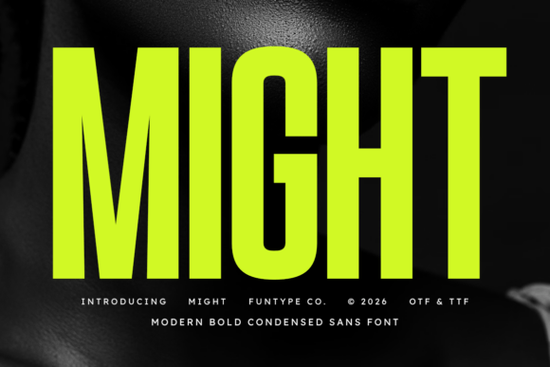
If you're looking for a font that can add a bold and powerful touch to your designs, the Might Font is an excellent choice. This modern bold condensed sans serif font is designed to make a strong impact, making it ideal for headlines, logos, and branding projects.
What Makes Might Font Stand Out?
The Might Font stands out with its refined heavy structure, tall height, and clean, solid lines. The unique sharp interior angles give it a distinctive and professional look. Whether you're working on a sports logo, industrial branding, or high-impact digital posters, this font will help you achieve a striking and advanced aesthetic.
Key Features of Might Font
- Bold and Condensed: Perfect for creating strong, impactful headlines.
- Refined Heavy Structure: Adds a professional and balanced feel to your designs.
- Clean, Solid Lines: Ensures clarity and readability, even in smaller sizes.
- Unique Sharp Angles: Gives a modern and advanced look to your typography.
When to Use Might Font
The Might Font is versatile and can be used in a variety of design projects. Here are some scenarios where it shines:
- Strong Headlines: Use it for titles that need to grab attention and make a statement.
- Professional Sports Logos: Its bold and powerful design makes it perfect for sports branding.
- Industrial Branding: Ideal for companies that want to project strength and reliability.
- High-Impact Digital Posters: Create eye-catching posters that stand out in any setting.